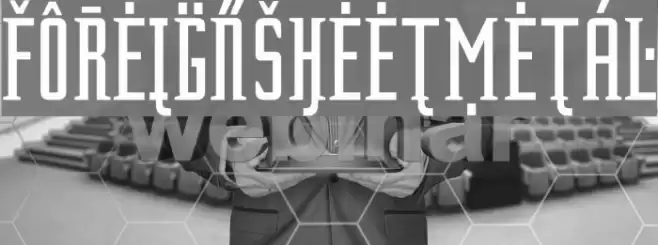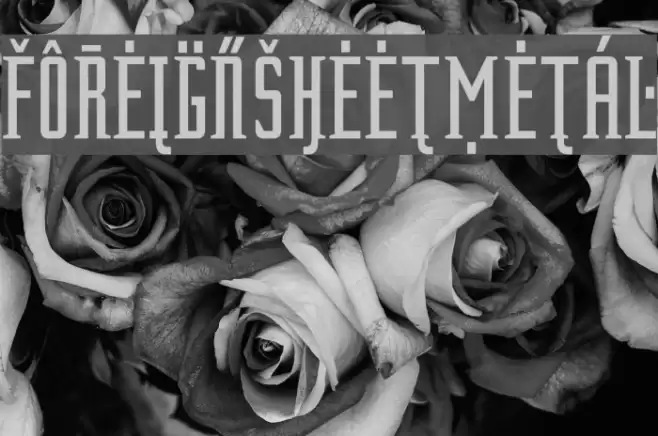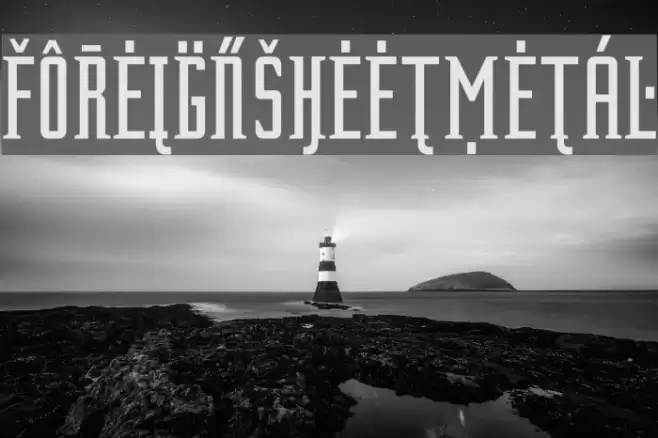
ForeignSheetMetal Font
ForeignSheetMetal Description
This font features a bold, geometric design with strong vertical lines and sharp angles, giving it a modern and industrial feel. The characters are tall and narrow, with a consistent stroke width that adds to its structured appearance. Accented characters are included, showcasing versatility for various languages. The numerals are equally bold and maintain the same height as the uppercase letters, ensuring uniformity across text. This font's unique style makes it stand out, suitable for projects that require a strong visual impact.
A bold, geometric font with a modern, industrial aesthetic from Decorative fonts.
- Proposed Projects: Ideal for branding, posters, headlines, and any design requiring a bold statement.